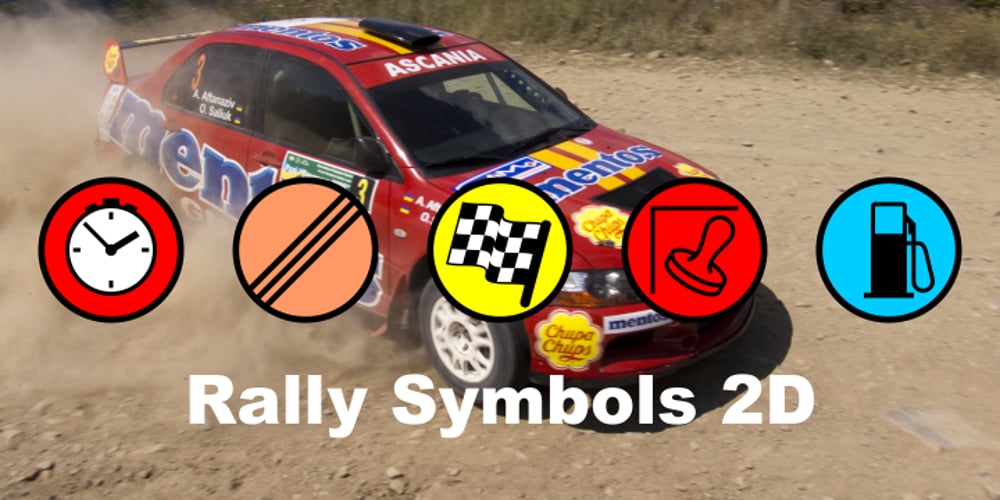
Rally Symbols 2D
Rally Symbols 2D font
Rally Symbols 2D Font Family was designed by Lukyan Turetskyy and published by 2D Typo. Rally Symbols 2D contains 3 styles and family package options. The Rally Symbols 2D font family has been developed for integrated graphical motor racing design. First of all that includes rally, rally raid, cross-country rally and hill climb. With the Rally Symbols 2D – Signs font one can create quality road maps with rally routes and various symbol books. The font also includes symbols that can serve as workpieces to create competition logos and other design solutions. The Rally Symbols 2D – Arrow font has been specially developed for building tulip diagram road books. It includes various ready-made combination of traffic direction indicators and individual elements that can be combined together. The Rally Symbols 2D – Picto font can be used for the same purposes but also contains a range of convention that can help to find one’s bearings on the ground. This is a a wide range of icons or pictograms of various scenery, for example: different buildings, churches, cemetery, bridges, tunnels, different types of trees, posts, etc.